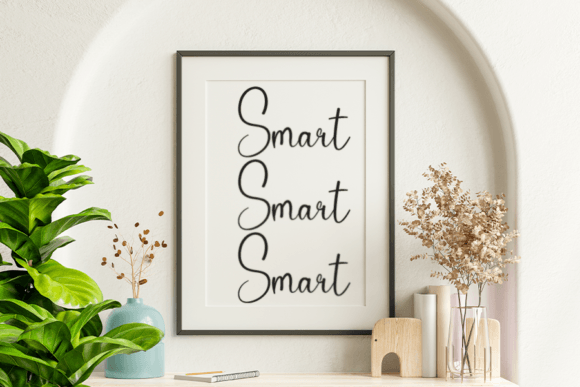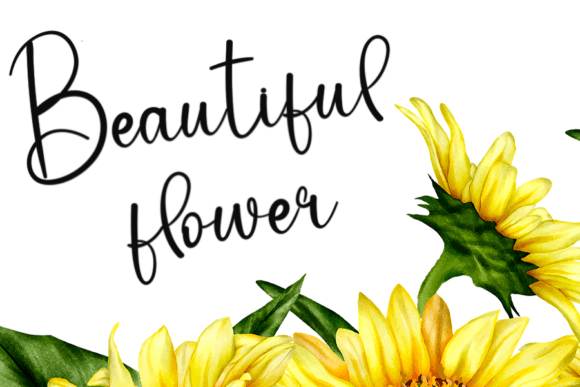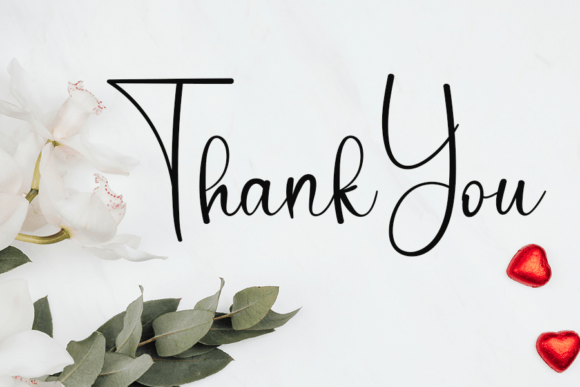
Have you ever been working on a project, and then suddenly, you stumble upon that one perfect font that just makes everything come together? For many of us, that moment is like finding a treasure trove of inspiration. It’s a spark that ignites our creativity and sets us on a path to producing something truly special.
For designers and crafters alike, the Boho Bear Font is that spark. This fun and friendly handwritten font is perfect for adding a touch of personality to your next project, whether it’s a digital design, a presentation, or a handmade greeting card. With its unique charm and versatility, the Boho Bear Font has the potential to become your go-to font for any occasion.
Key Features of Boho Bear Font
- Unique Characteristics: The Boho Bear Font features a whimsical, hand-drawn design with a mix of bold and cursive elements, giving it a distinctive and playful feel.
Designer Review: Boho Bear Font
I recently had the chance to work with the Boho Bear Font, and I must say it’s a unique and charming addition to any design project. ✨ The font’s eclectic mix of script and serif elements gives it a free-spirited feel that’s perfect for bohemian-inspired designs.
Here are some of the things I love about the Boho Bear Font:
- ✨ It’s highly customizable, with a range of ligatures and swashes that can be turned on or off.
- ✨ The font comes in a range of weights, from light to bold, making it suitable for a variety of design applications.
- ✨ The Boho Bear Font is highly legible, even at smaller font sizes.
- ⚠️ The font may not be suitable for formal or corporate designs, as it has a distinctly playful feel.
- ⚠️ The font is not as comprehensive as some other script fonts, with limited punctuation and symbol support.
Overall, I think the Boho Bear Font is a great choice for designers looking to add a touch of whimsy and personality to their projects. With a little creativity and experimentation, it can be a truly effective and eye-catching font.
Boho Bear Font Practical Application Guide
The Boho Bear Font is ideal for creative projects that require a unique and eclectic feel. Common use cases include:
– Artistic quotes and posters
– Fashion and beauty branding
– Lifestyle and wellness publications
– DIY craft and home decor projects
Alternatives to Boho Bear Font
Great Vibes Font is a handwritten script font that captures the carefree and bohemian spirit of Boho Bear Font. It’s perfect for designing invitations, quotes, and other creative projects that require a touch of elegance and whimsy.
Compared to Boho Bear Font, Great Vibes Font has a more refined and sophisticated feel, making it suitable for a wider range of designs.
Carolyna Pro Font is a modern calligraphy font that combines elegance and playfulness. It’s ideal for designers who want to add a touch of sophistication to their projects without sacrificing creativity.
Unlike Boho Bear Font, Carolyna Pro Font has a more structured and polished feel, making it suitable for corporate designs, branding, and advertising.
Carolyna Pro Font is a good alternative to Boho Bear Font if you want a more structured and sophisticated feel, however if you are looking for something that resembles a more relaxed bohemian style then